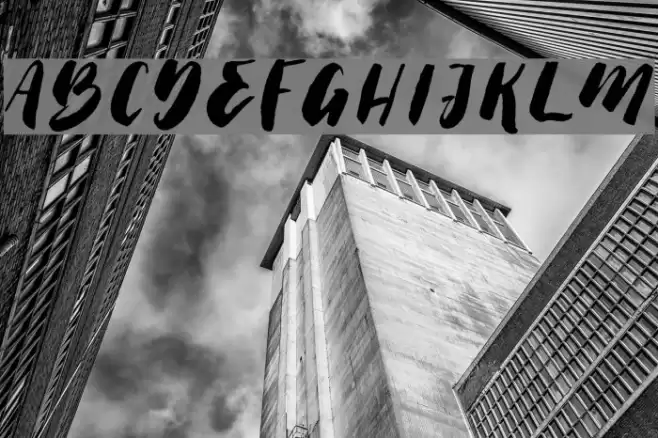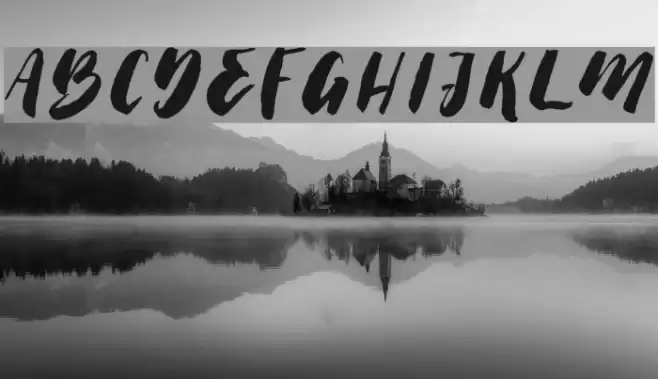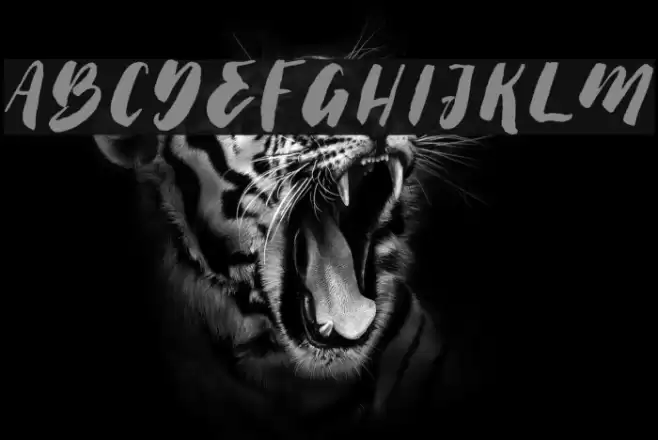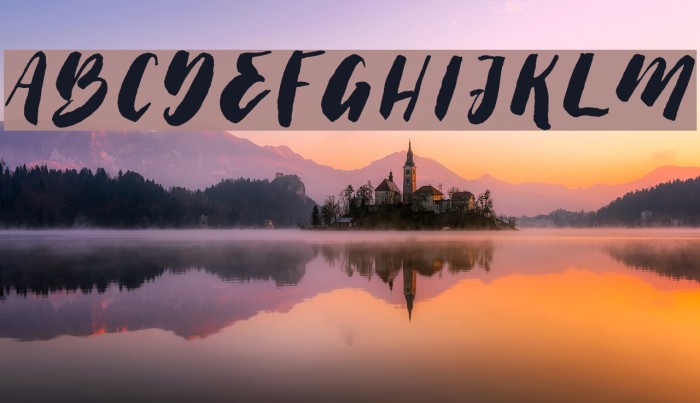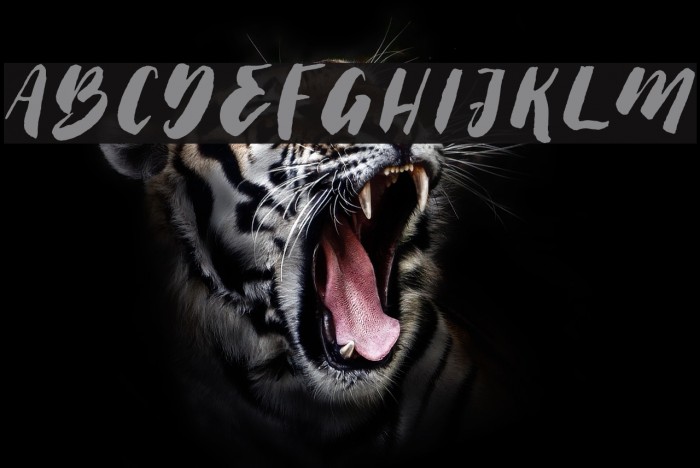
Thick Brush Demo Font
Thick Brush Demo Description
This font features a bold, expressive brush style that exudes energy and dynamism. The letters are crafted with thick strokes, giving them a strong presence and a sense of movement. The uppercase and lowercase characters maintain a consistent style, with slightly irregular edges that add a handcrafted feel. The font's design is reminiscent of calligraphy, with a modern twist, making it suitable for projects that require a personal touch. The overall appearance is both artistic and impactful, ideal for capturing attention.
A bold, expressive brush-style font with a dynamic, handcrafted feel from Uncategorized fonts.